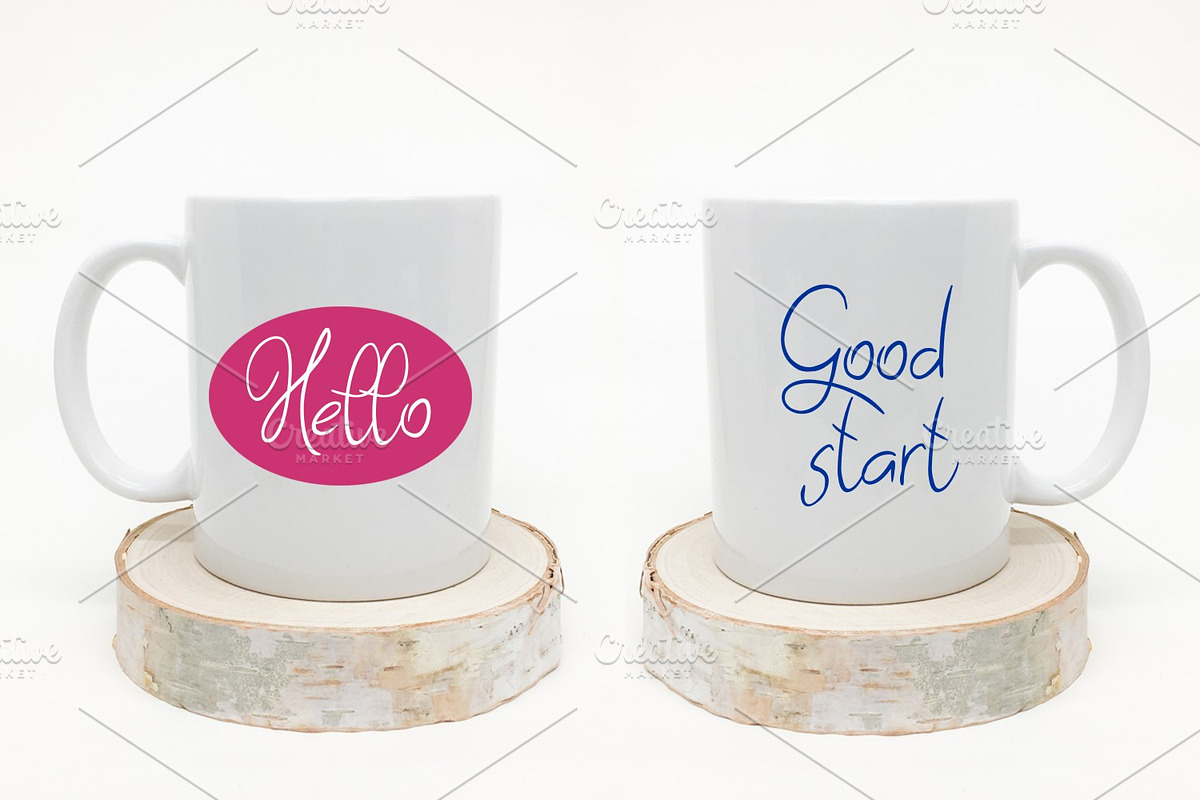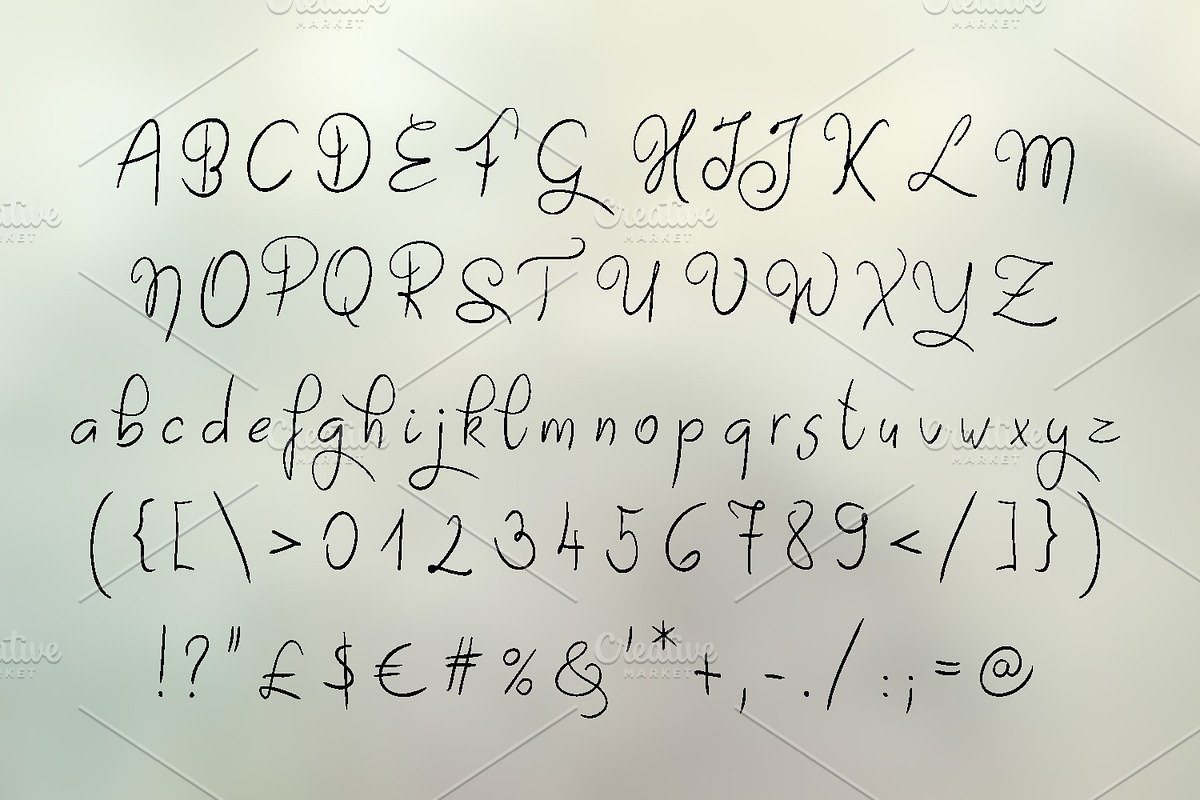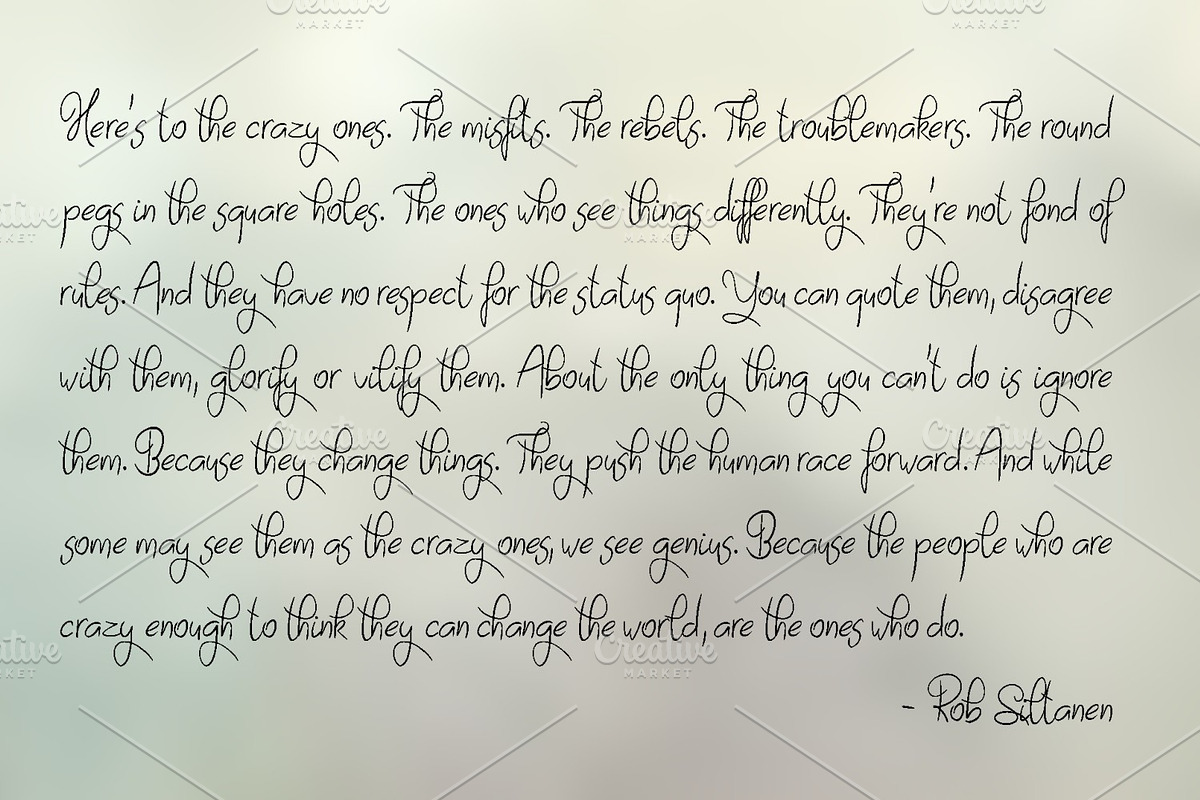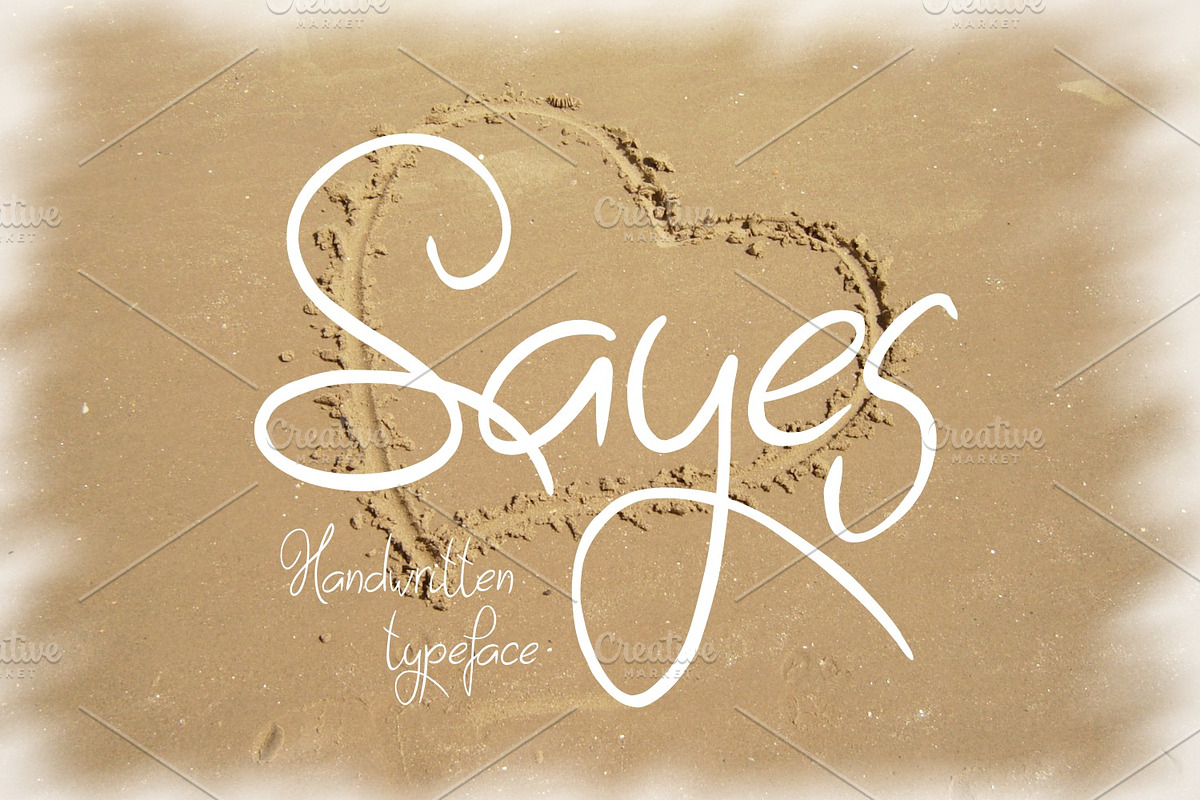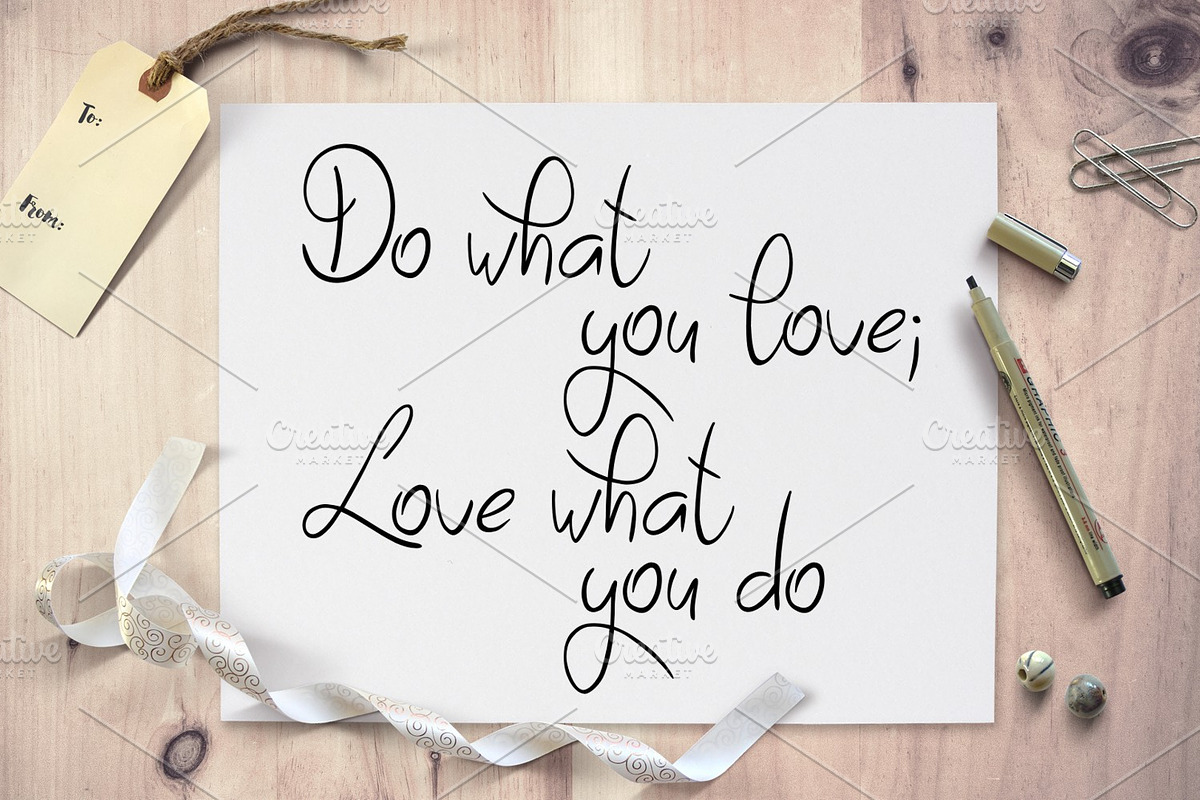
Sayes
Introducing Sayes handwritten typeface. Great for cards, wedding stationeries and many other craft projects! Download and use across a huge range of programs such as Adobe programs, Corel programs, Cricut and many others!
Why Sayes is worth a look
Sayes by Digital Typeface Studio fits naturally into Branding, posters, packaging, typography.